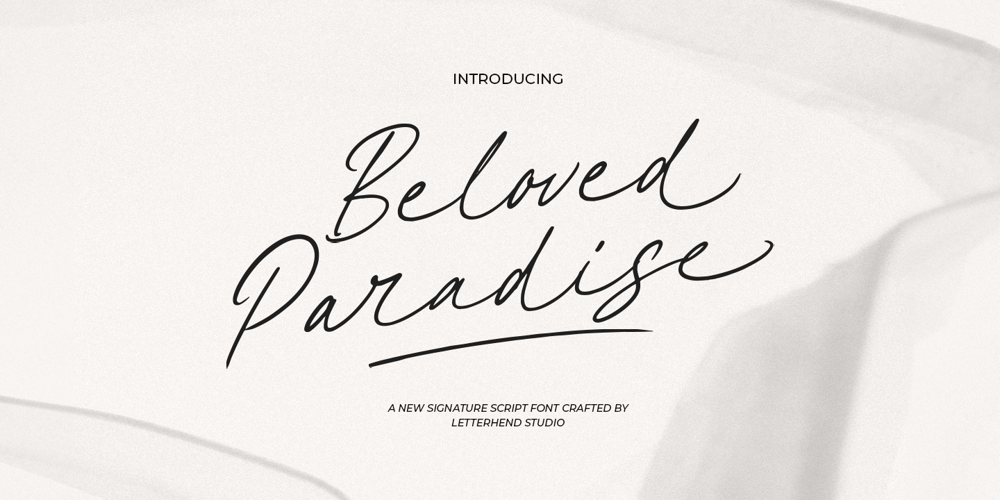
Beloved Paradise Medium Font Family was designed by Hendry Juanda and published by Letterhend. Beloved Paradise Medium contains 1 styles and family package options. Beloved Paradise is a beautiful signature script based on manual hand writing. The stylistic alternate, ligatures and the tick and thin stroke make this font looks a real hand writing instead of typing a font. This type of font perfectly made to be applied especially in logo, and the other various formal forms such as invitations, labels, logos, magazines, books, greeting / wedding cards, packaging, fashion, make up, stationery, novels, labels or any type of advertising purpose.Features : Uppercase & lowercase Numbers and punctuation Alternates & Ligatures Multilingual Support PUA encoded